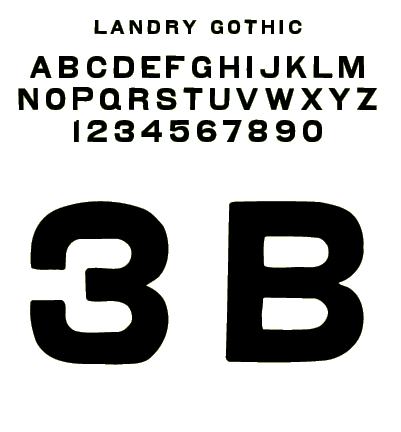
Digital fonts tend to look very crisp and sharp, but for prop vintage items it's often desirable to have a softer look. This is one of two fonts meant to give a feel of old wood or lead type that's been in use for a while, its corners and edges rounded with age. It works well with vinyl cutters in making prop signage.